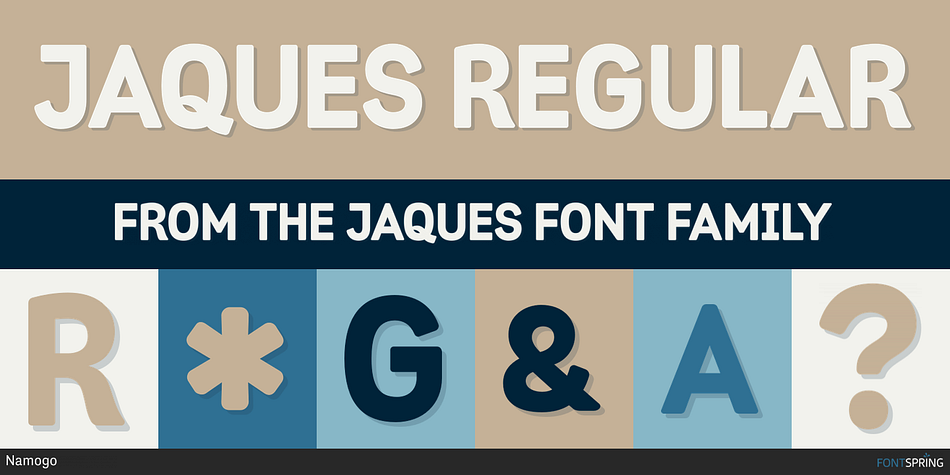
JAQUES REGULAR
Jaques is a display sans font published by Namogo.
Jaques is an all-caps typeface created with packaging in mind. With its unique and distinct characteristics, Jaques is the perfect choice for print, with narrow proportions and slightly rounded corners.
This font is packed with lots of stylistic alternates, language support, localised forms and also a set of connection words that you can use by activating the discretionary ligatures in your OpenType panel. Jaques is perfect for headlines, posters, logotypes, badges, signage and many more.